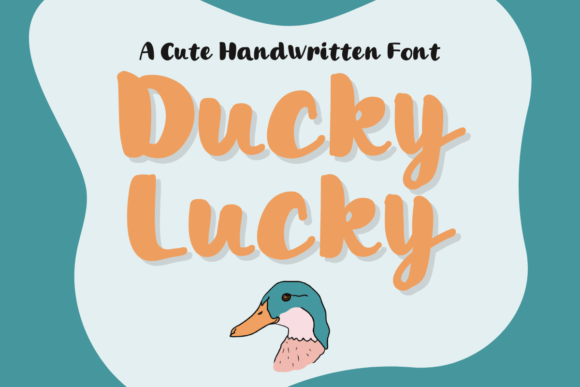
Meet Your New Favorite Font: Ducky Lucky Font
Have you ever stared at a blank page, wondering how to bring your creative vision to life? It’s a feeling we’ve all been there – the blank slate staring back at us, taunting us with its emptiness. But what if I told you there’s a secret to unlocking your creativity and making those blank pages a thing of the past?
Enter Ducky Lucky Font, a delightful handwritten font that’s perfect for digital note-taking and a multitude of creative projects. Its playful, whimsical style makes it an ideal choice for designers looking to add a touch of personality to their work. Whether you’re crafting a Procreate design, writing a blog post, or creating a logo, Ducky Lucky Font is the perfect companion to bring your ideas to life.
Ducky Lucky Font Key Features
- Font Family: Ducky Lucky Font is a unique, hand-drawn font family designed for various applications.
- Unique Characteristics: Features a playful, whimsical design with irregular letterforms and subtle imperfections, making it ideal for creative projects.
- Characters: Includes a wide range of characters, including uppercase and lowercase letters, numbers, and punctuation marks.
Ducky Lucky Font Review
As a designer, I was excited to dive into the world of “Ducky Lucky Font”. This quirky font is sure to bring a smile to your face, and here’s what I think:
- The playful, hand-drawn feel is perfect for children’s books, educational materials, or any project that needs a lighthearted touch.
- The font is highly legible, even at smaller sizes, making it a great choice for body text or headings.
- The variety of weights and styles allows for a lot of creative flexibility, from bold and eye-catching to delicate and whimsical.
- The font may not be the best choice for formal or professional projects, as its playful nature may come across as unprofessional.
- The lack of a clear, cohesive style direction can make it difficult to pair with other fonts or design elements.
Overall, I think “Ducky Lucky Font” is a fun and versatile choice for designers looking to add a touch of whimsy to their projects. While it may not be suitable for every project, it’s a great addition to any designer’s toolkit.
The Ducky Lucky Font is ideal for creating playful, whimsical designs. Common use cases include:
– Children’s party invitations and decorations
– Social media graphics and advertisements
– Branding and marketing materials for fun and quirky businesses
– Personal projects and DIY crafts